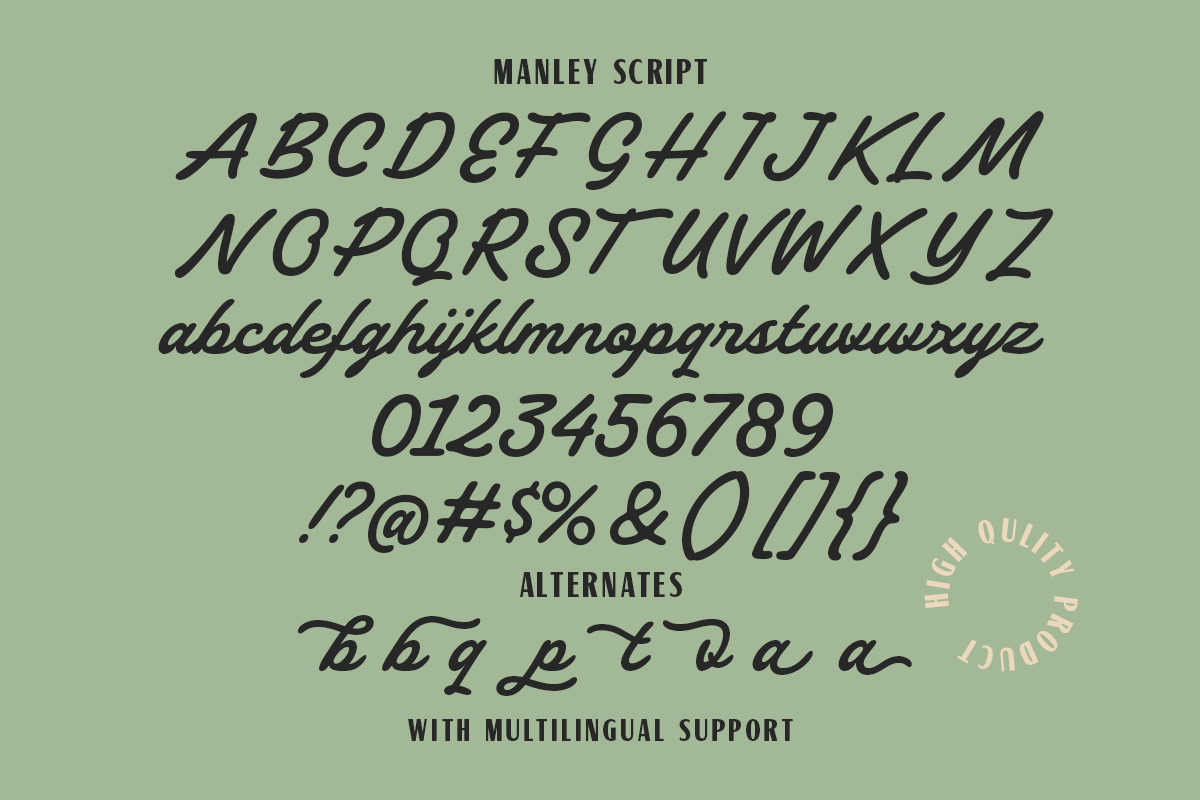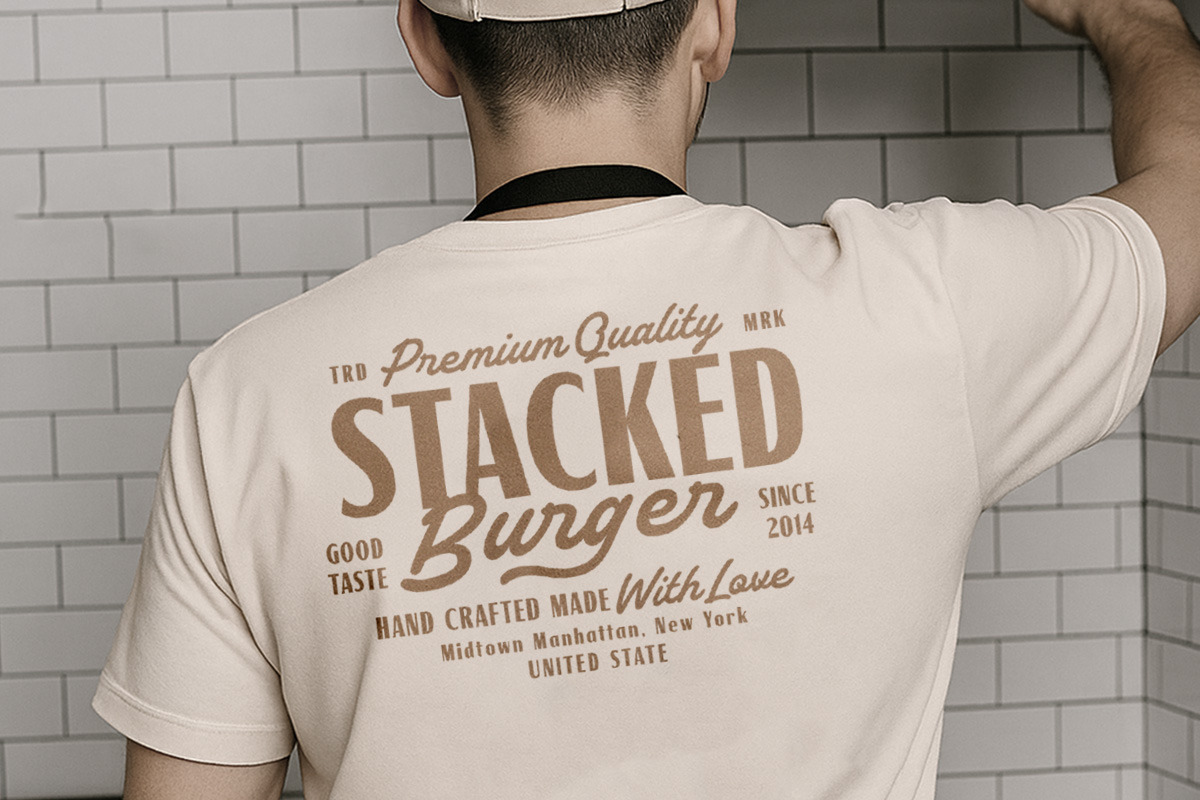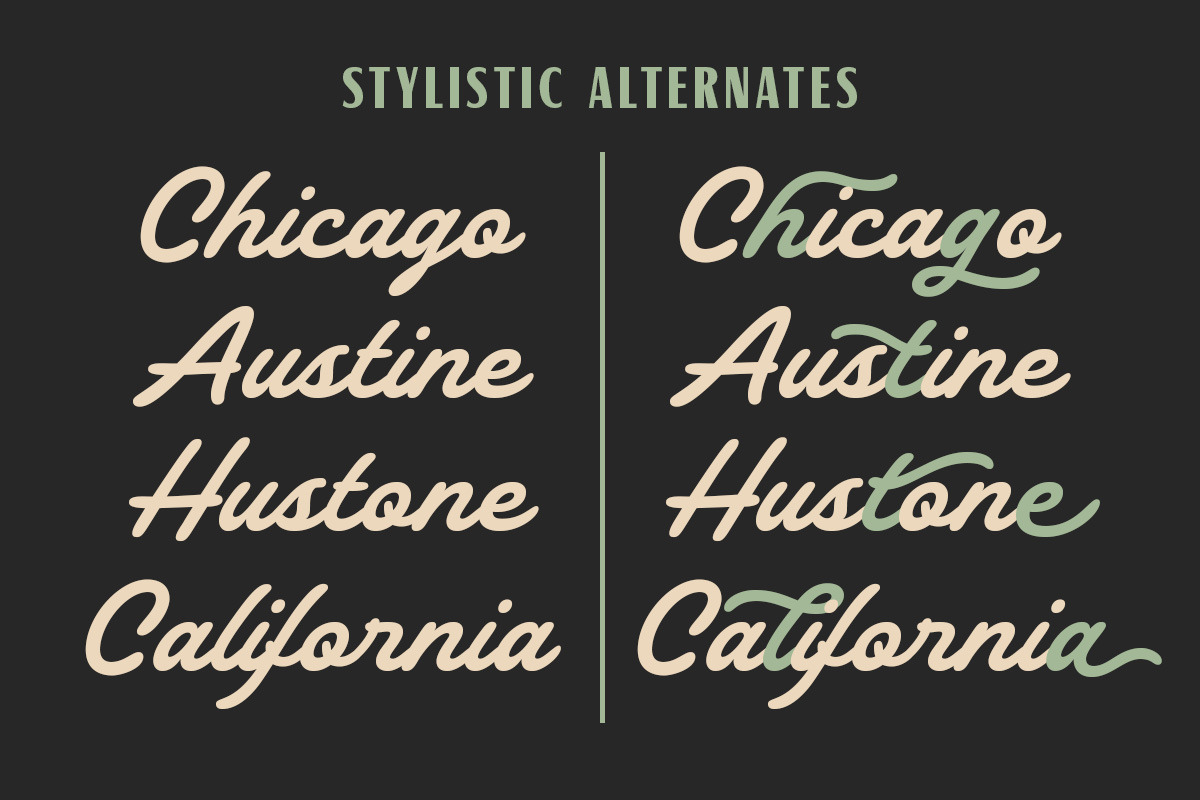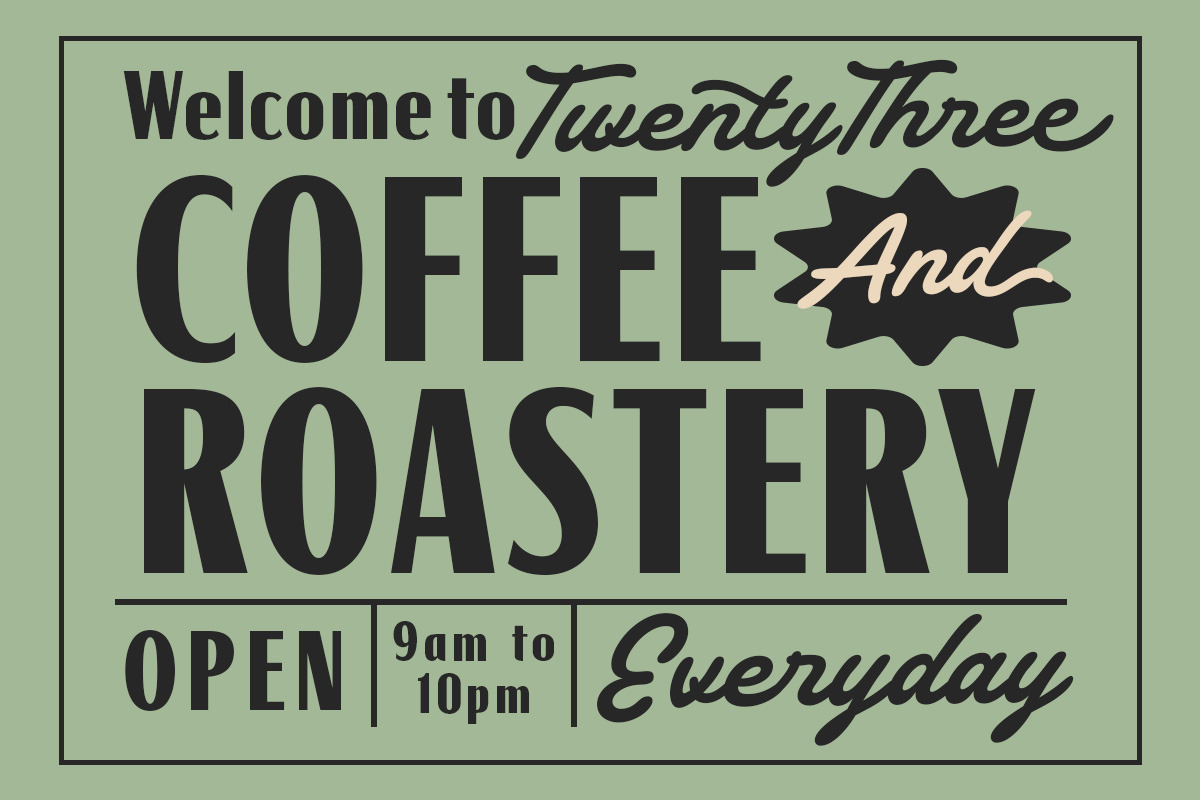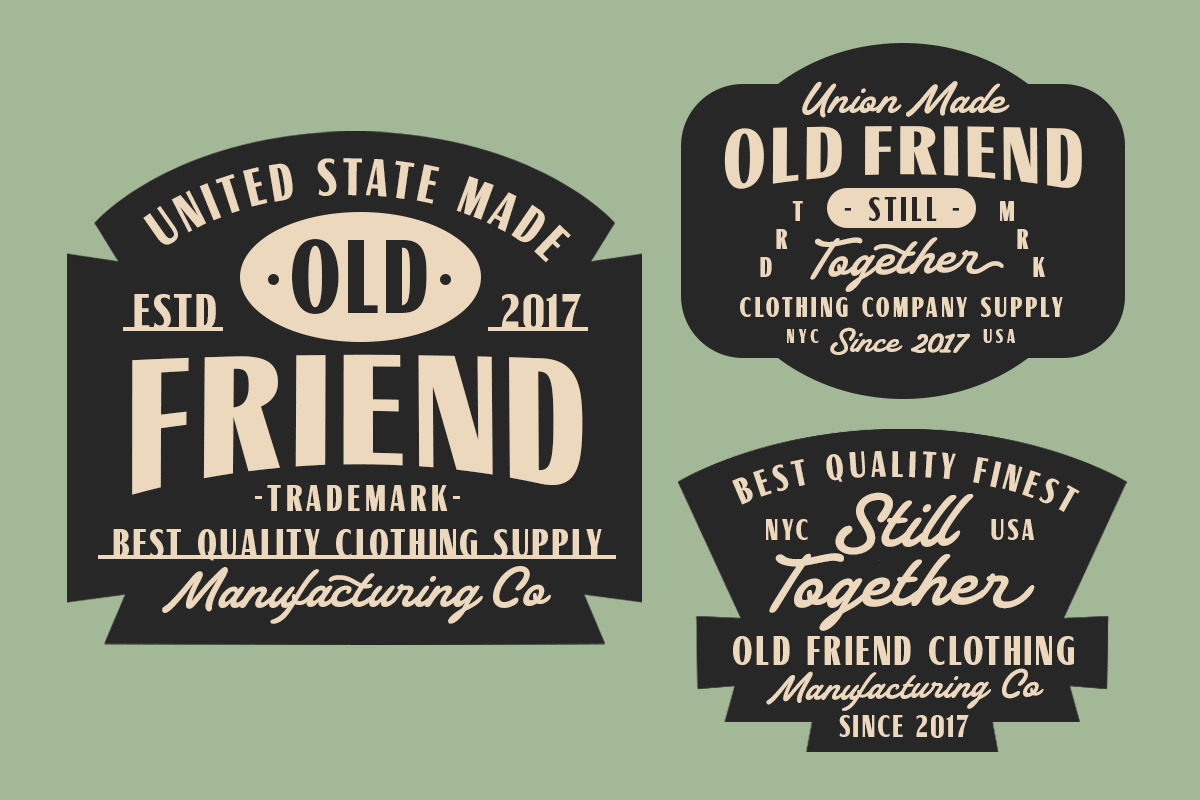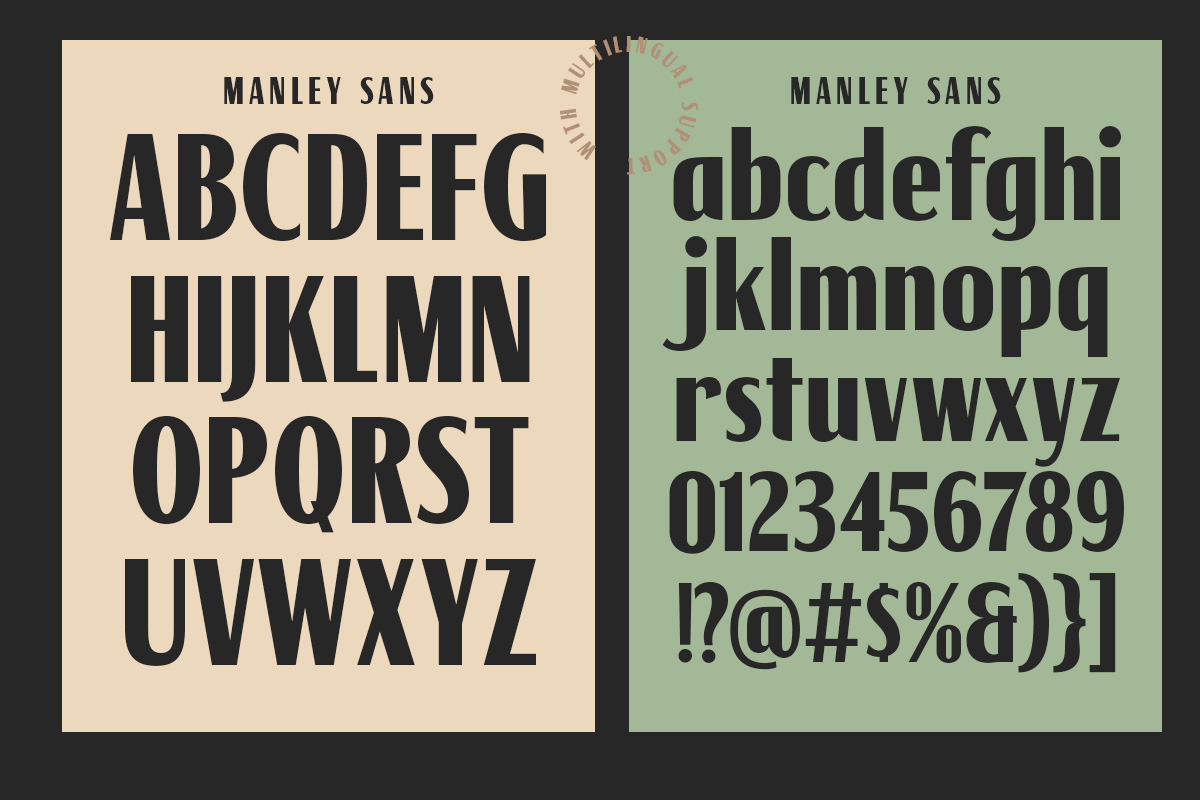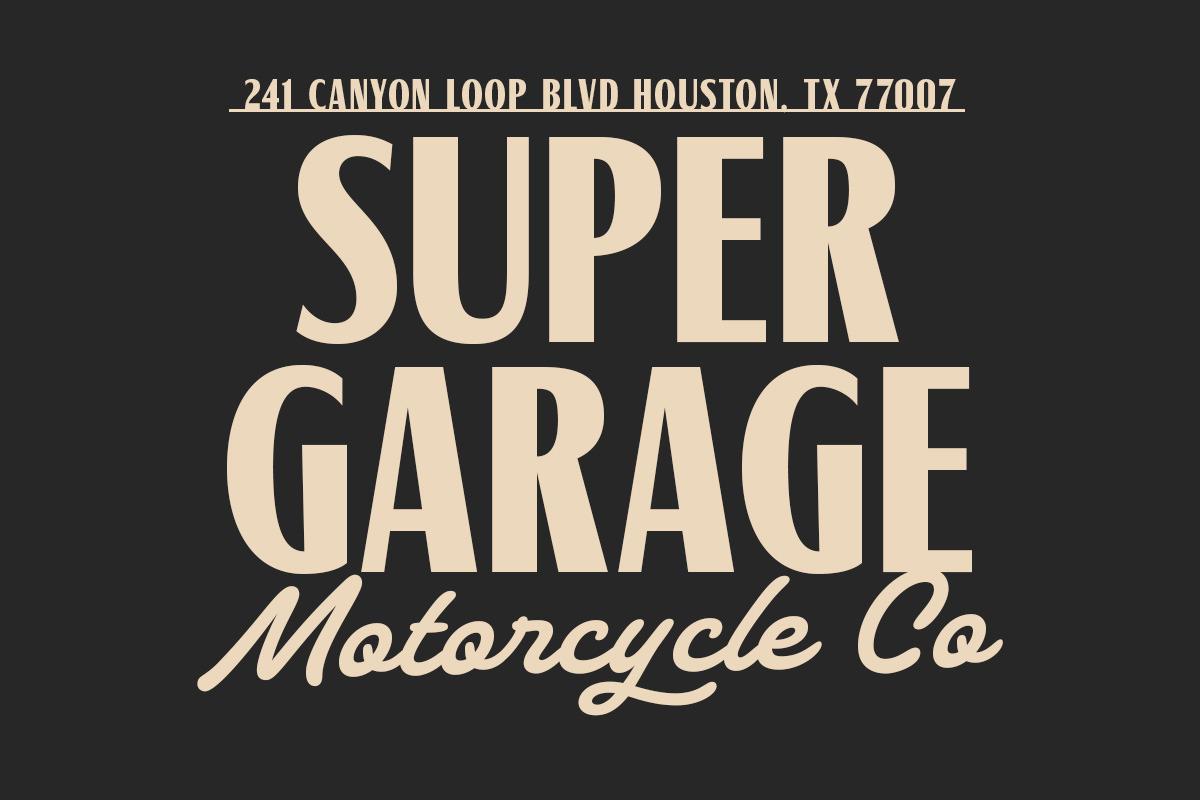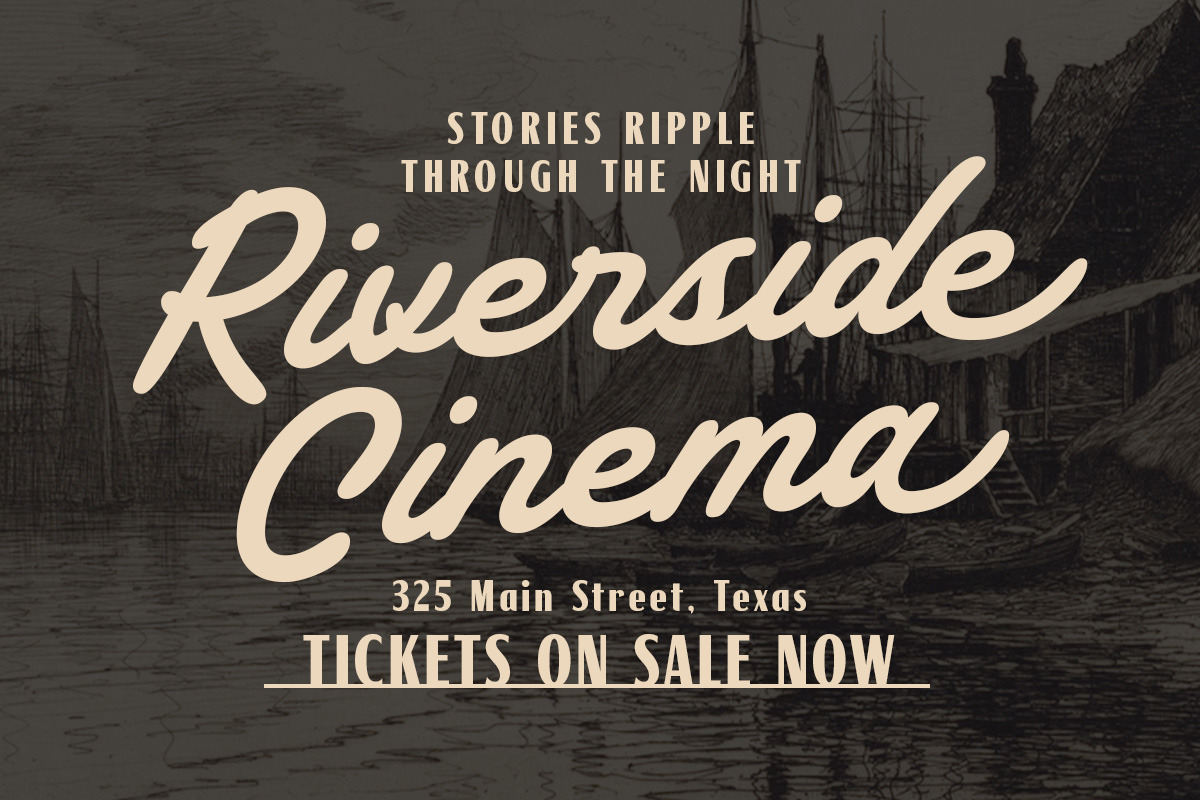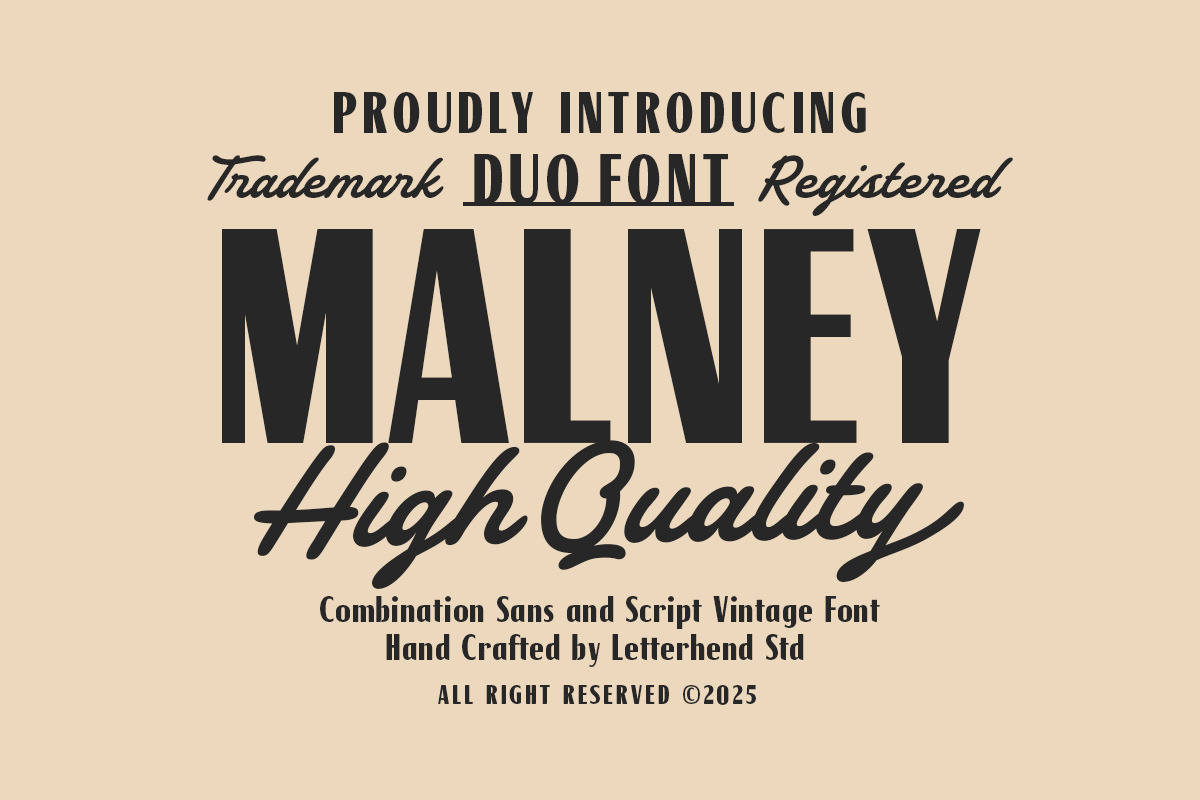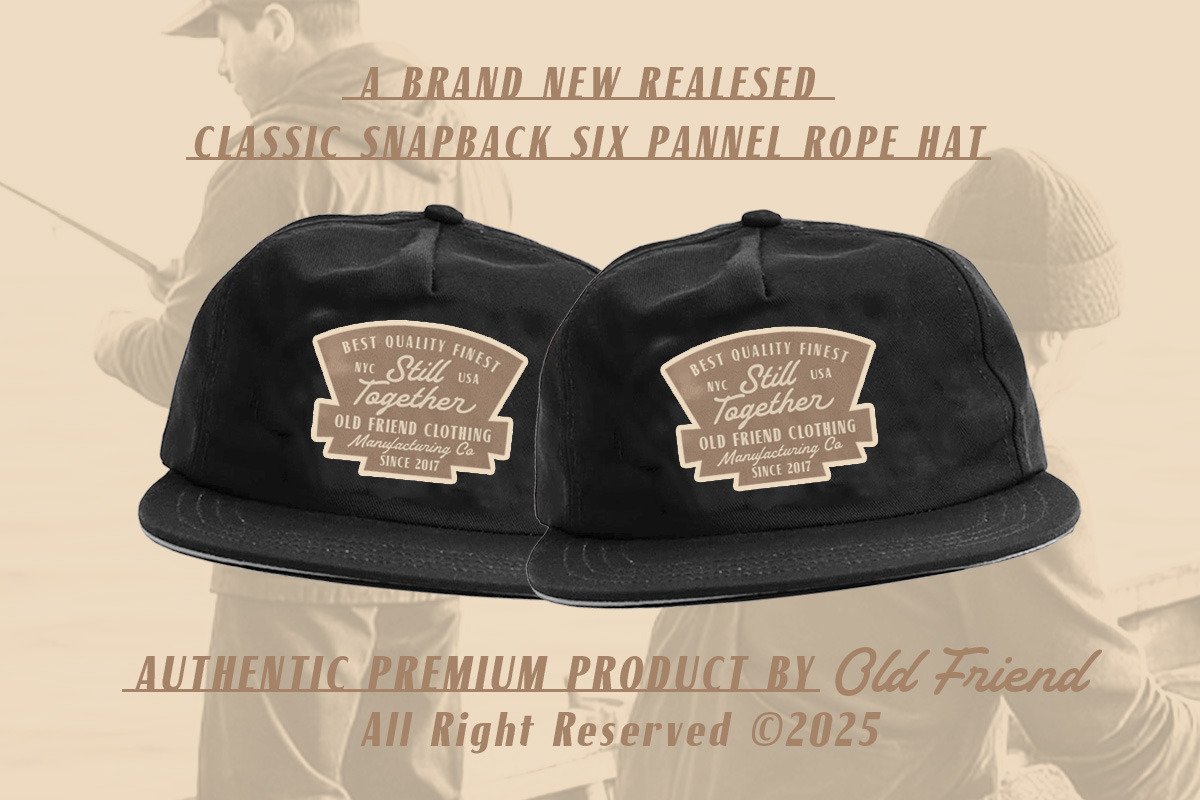
Malney Classic Font Duo
Malney feels lovingly handcrafted, pairing sturdy sans shapes with a script that flows like hand-painted signage. This duo font feels timeless yet stylish, bring a sense of authenticity and human touch—perfect for artisanal branding, vintage goods, and heritage-inspired layouts.